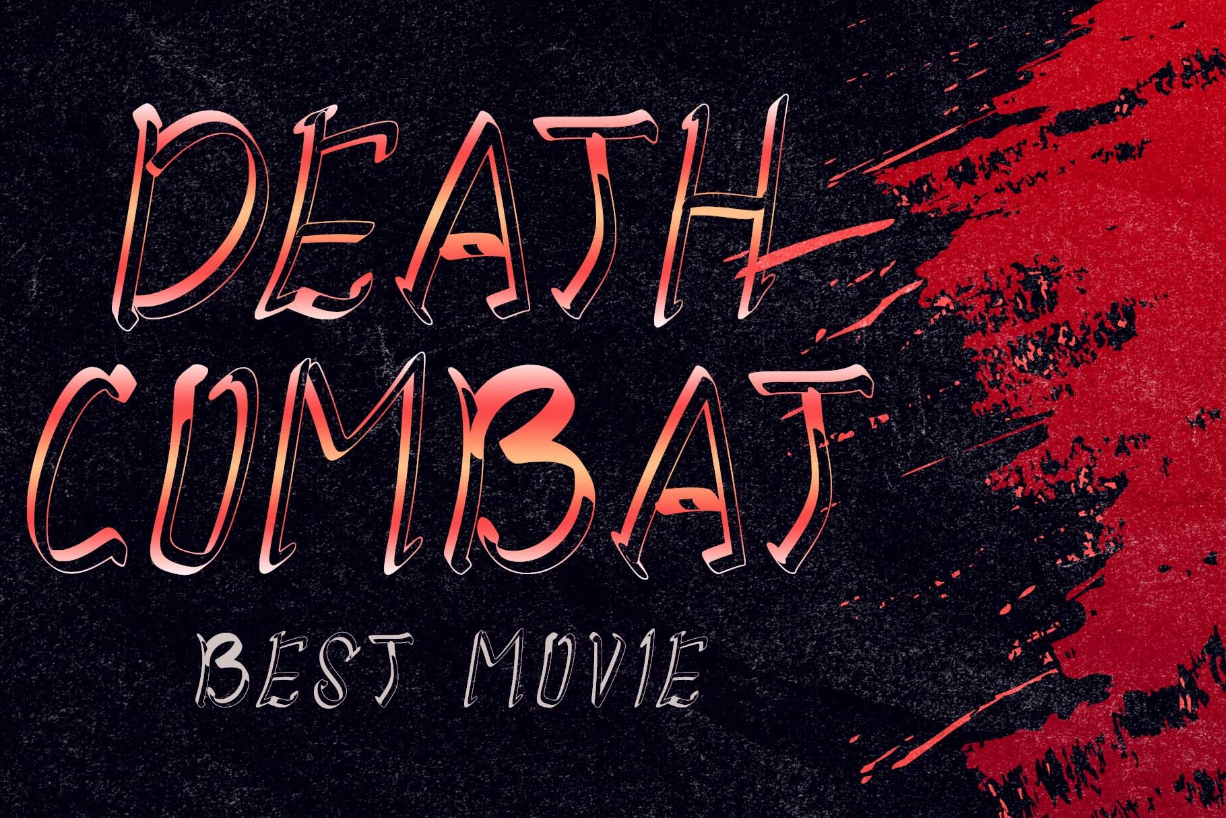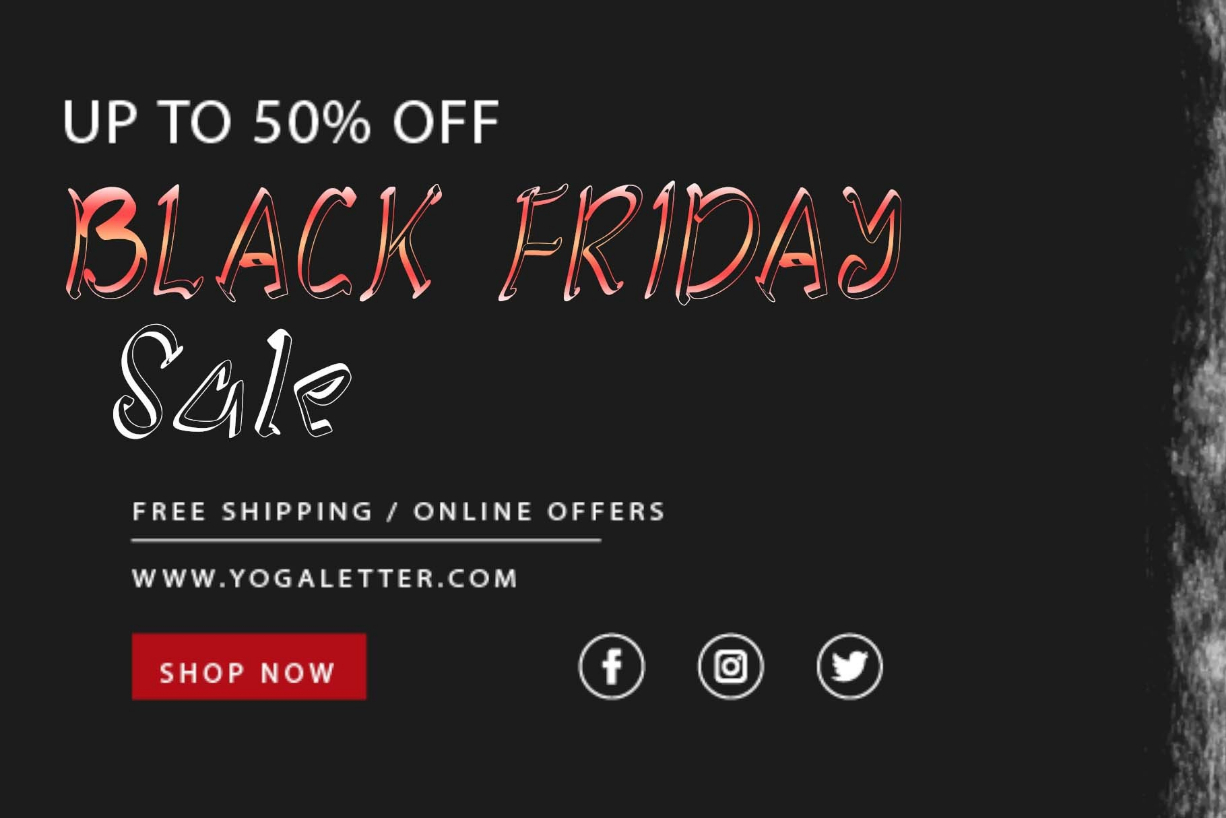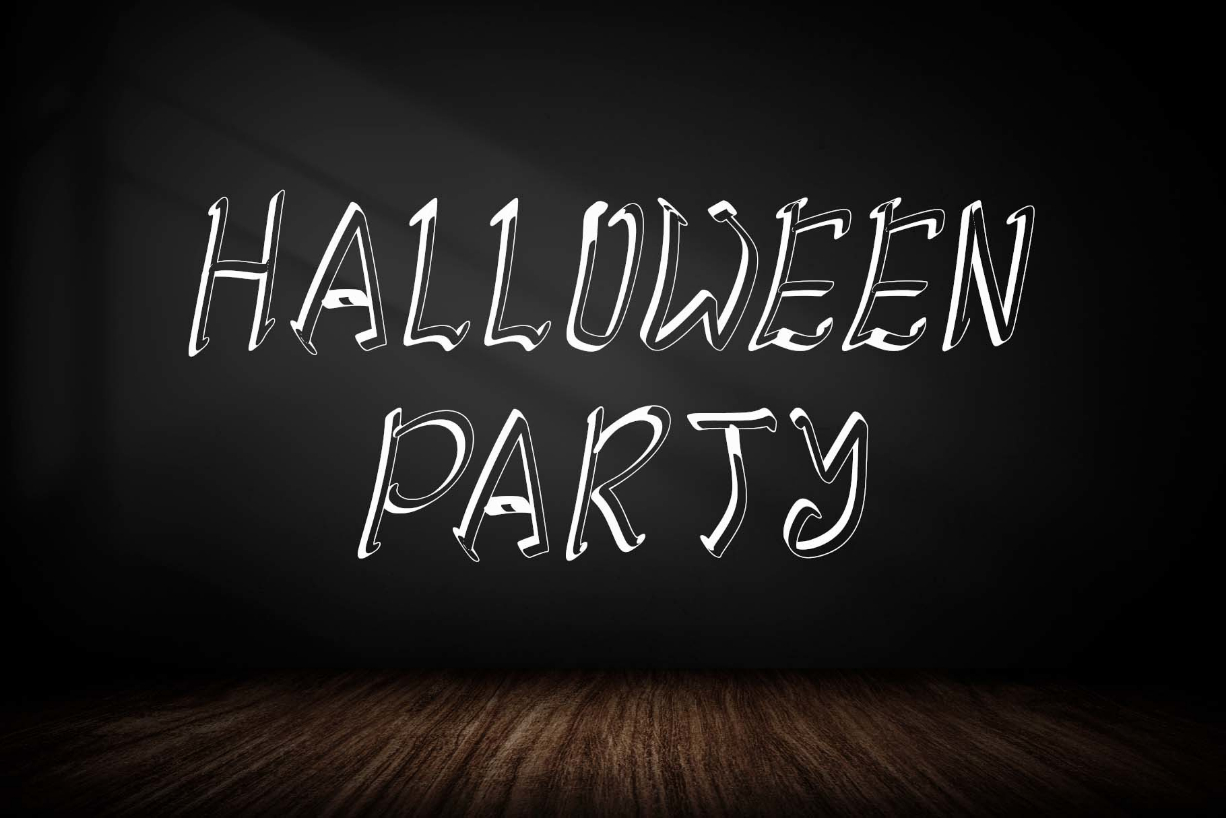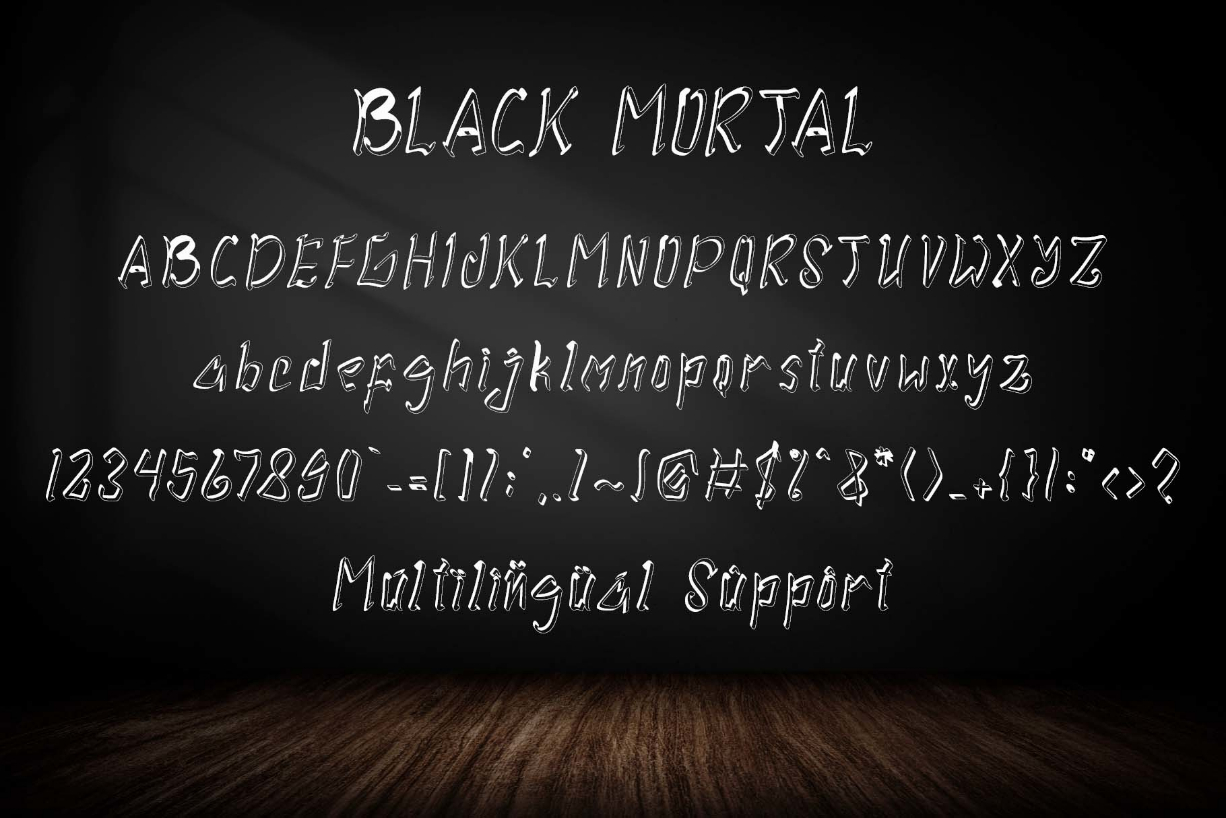
Black Mortal Font
About Black Mortal Font
“Black Mortal” is an elegant and unique block font. This font is perfect for logos, movie titles, business branding, stickers, book titles, banners, posters, Halloween, Black Friday, and more. Equipped with uppercase, lowercase, numerals, punctuation, and multilingual support.